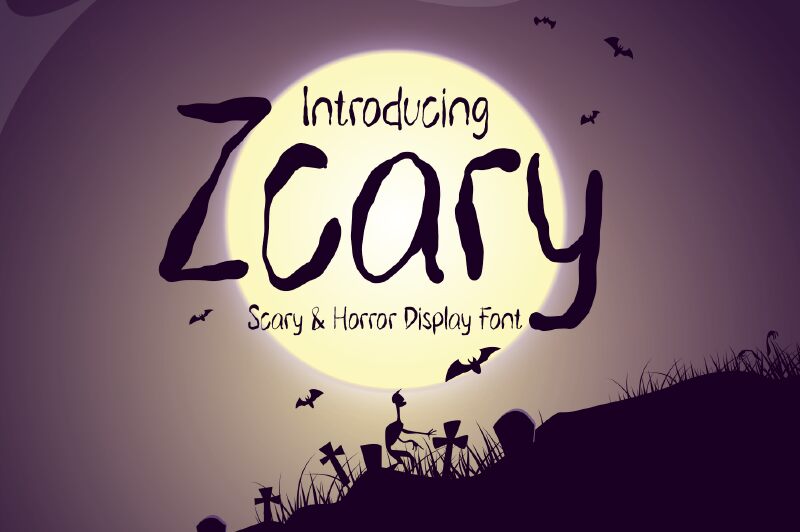
Zcary font is a Halloween creation by Tera Asset Garage. The stylish letters appear hand-drawn with irregular shapes giving each character its uniqueness. Those who desire to decorate their Halloween-related projects, including posters, invitation cards, or restaurant menus, can create pleasant, spooky designs. The display typeface has the advantage of being casual and whimsical while also being sufficiently professional.
While it goes without saying that Zcary is perfect for Halloween use cases, it’s still a free font that can be seamlessly used for creative posters and magazine covers as a whole or in part to supplement other fonts. Its appearances on album covers are moreover unparalleled since so many musicians like to be associated with spooky soundtracks! Game developers can get wonderful game text here; horror aficionados would certainly appreciate the scary appearance of this font in book covers and game UI design! A few more ideas of where Zcary can appear are logos and branding projects. Experiment indeed!